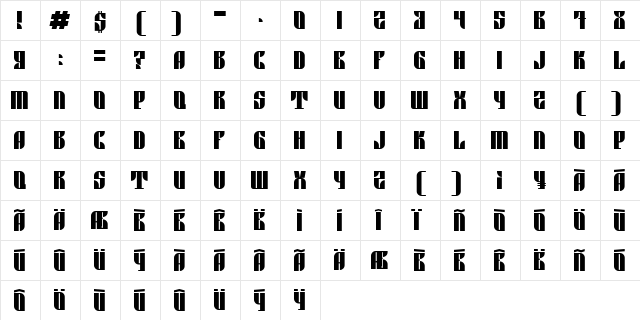
Black skull Regular
| Designer | Th鯠d'Aigremont |
Black skull is a composed and adaptable typeface that performs quietly and consistently across a wide range of design contexts.